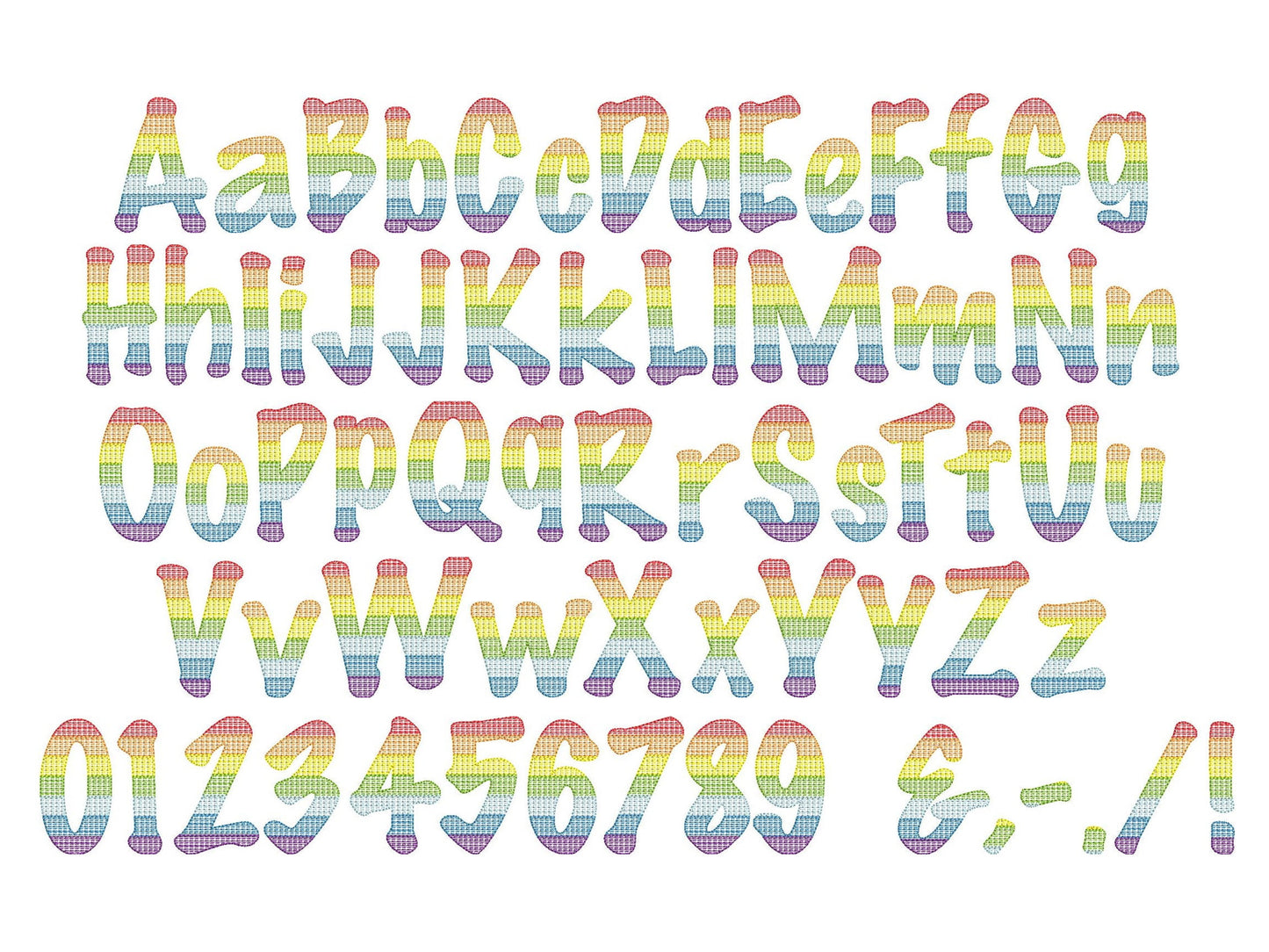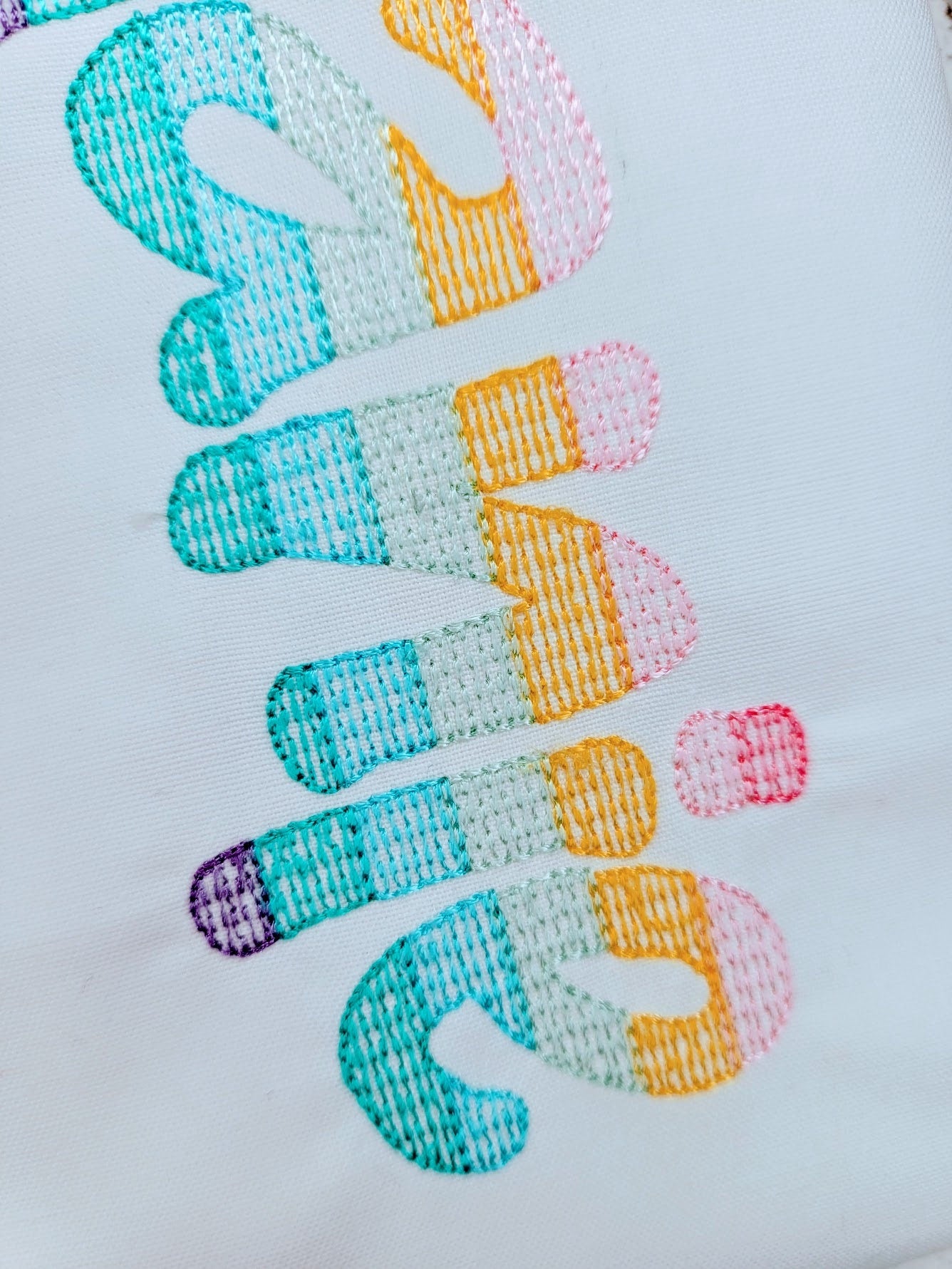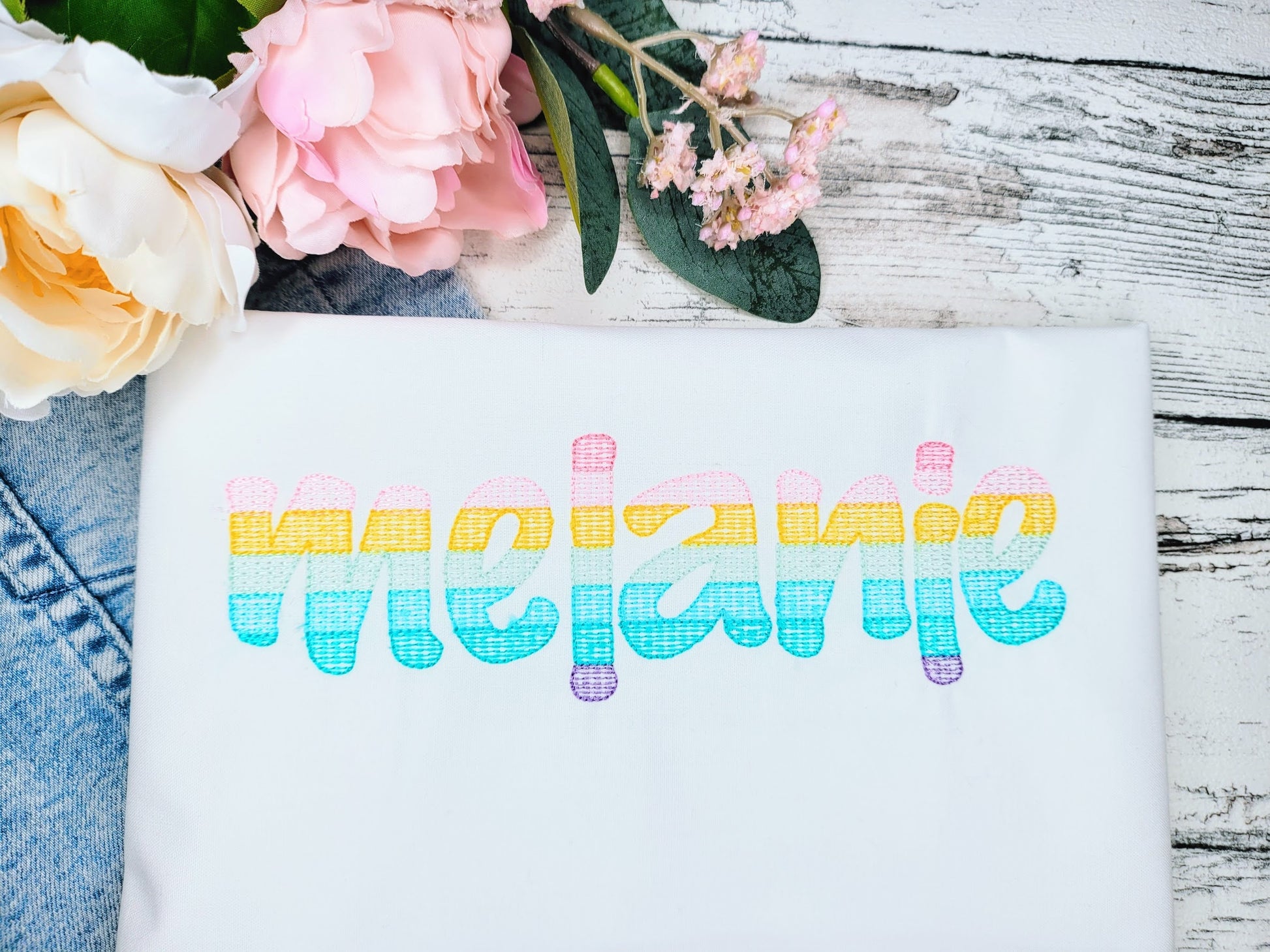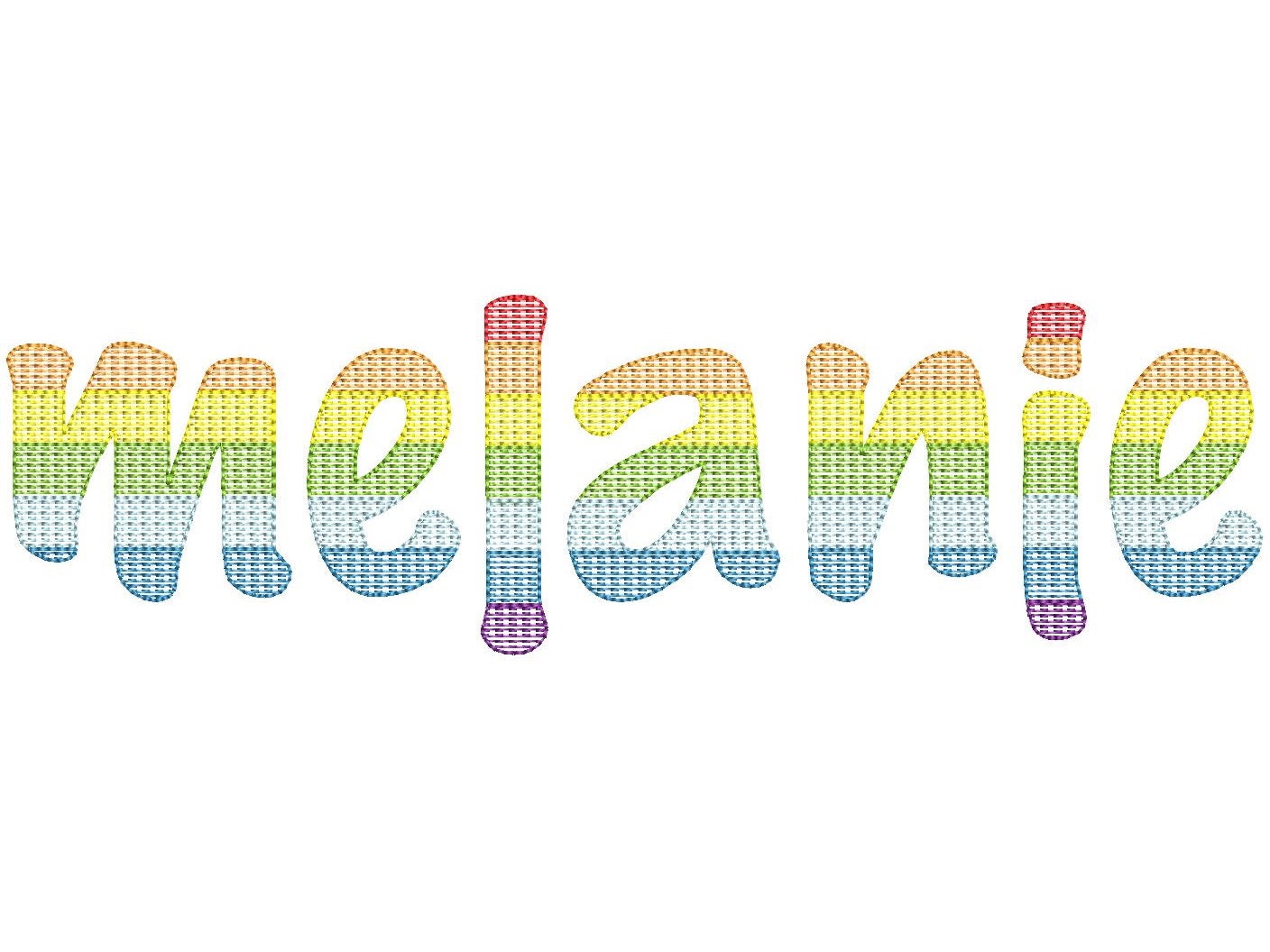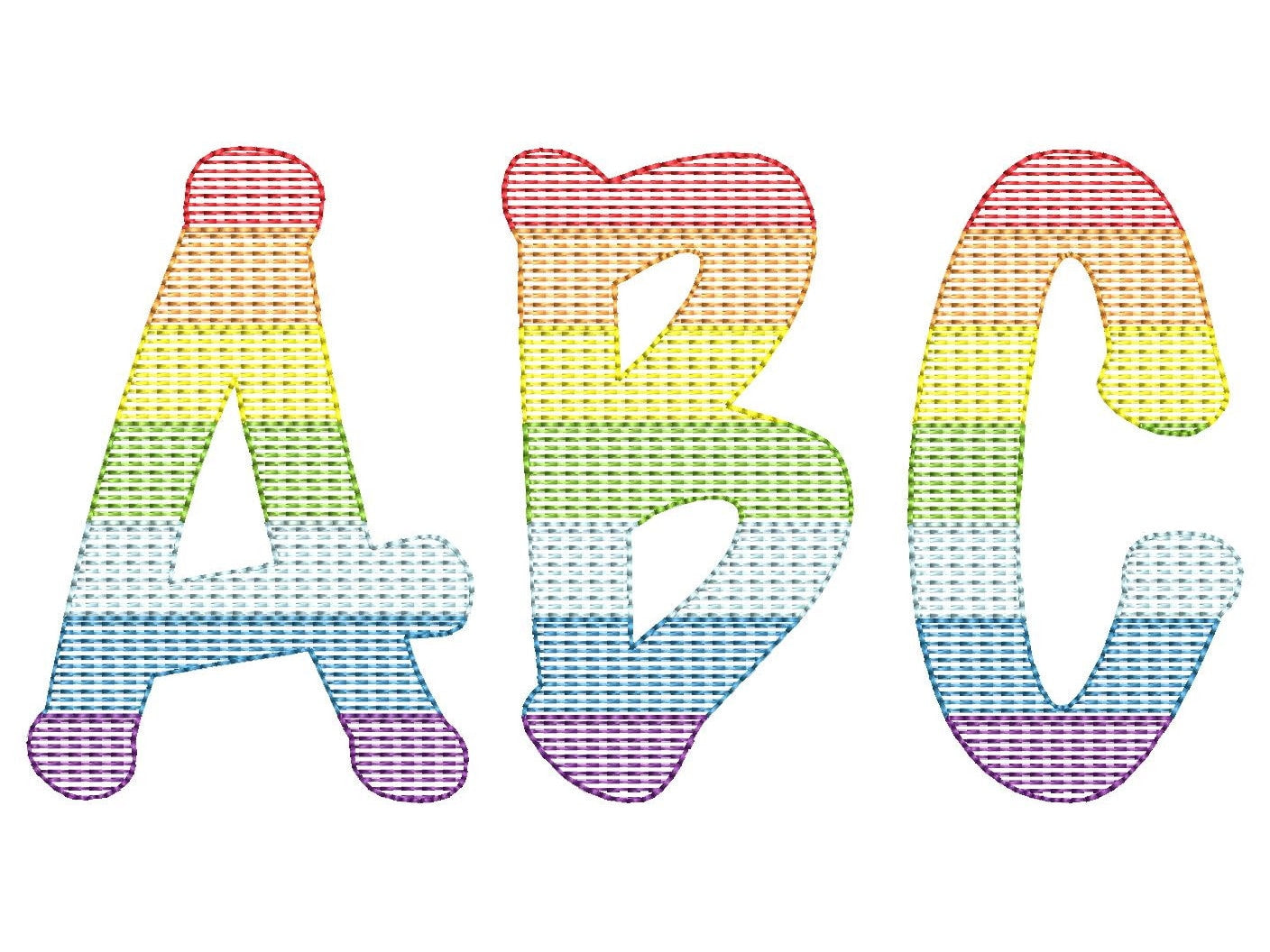
Or click to open the linkA quick sketch-style font with a light fill and bean stitch outline. Colorful and fun for kids' names and rainbow monograms.
The letters come in five sizes: 1.7, 2.1, 2.5, 3 and 3.6 inches. A low-density fill lets the fabric show through, framed by a bean stitch outline; best on white or light fabrics. Includes uppercase and lowercase letters, numbers 0 to 9 and punctuation.